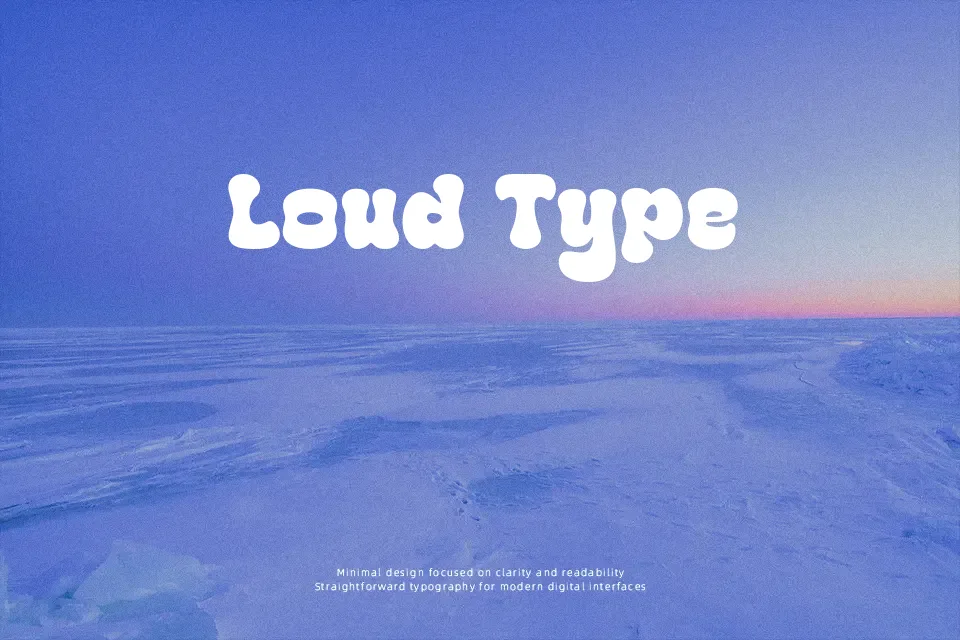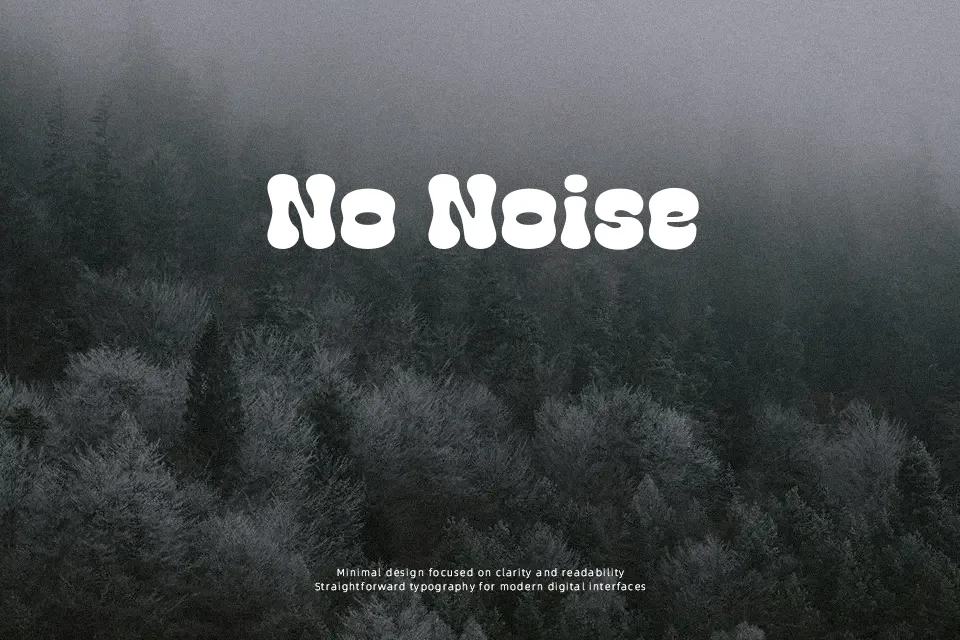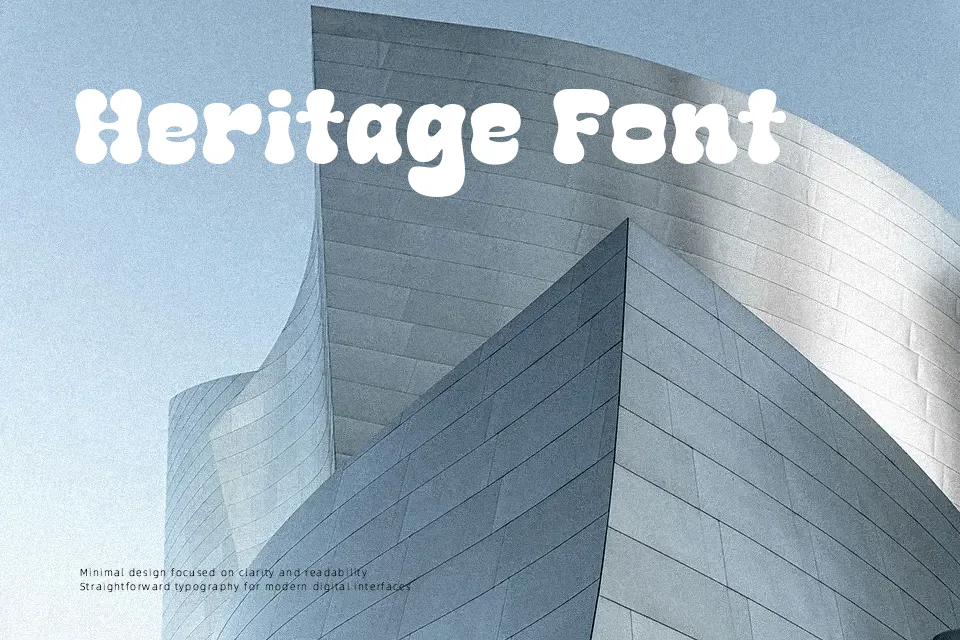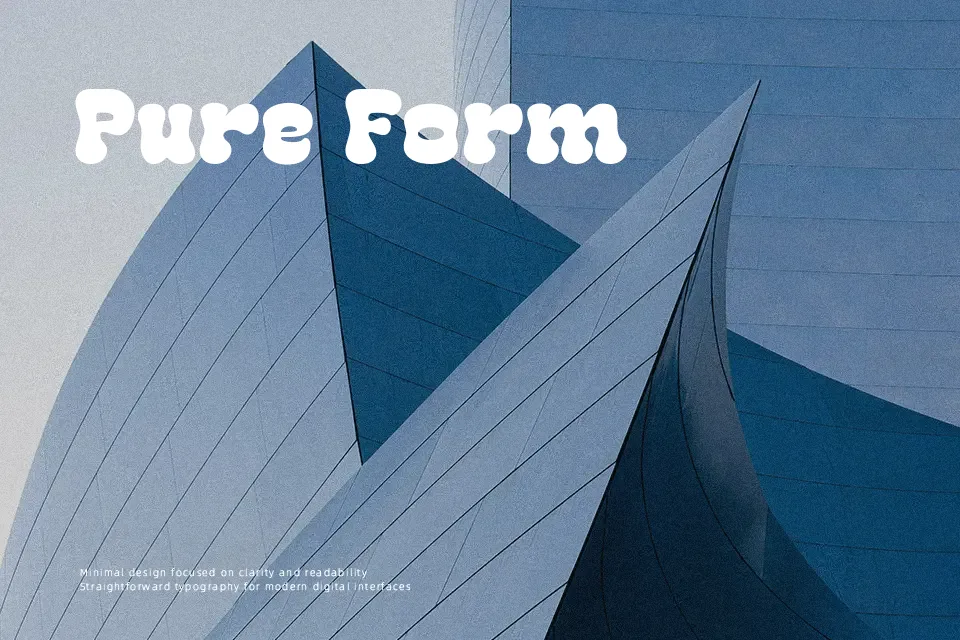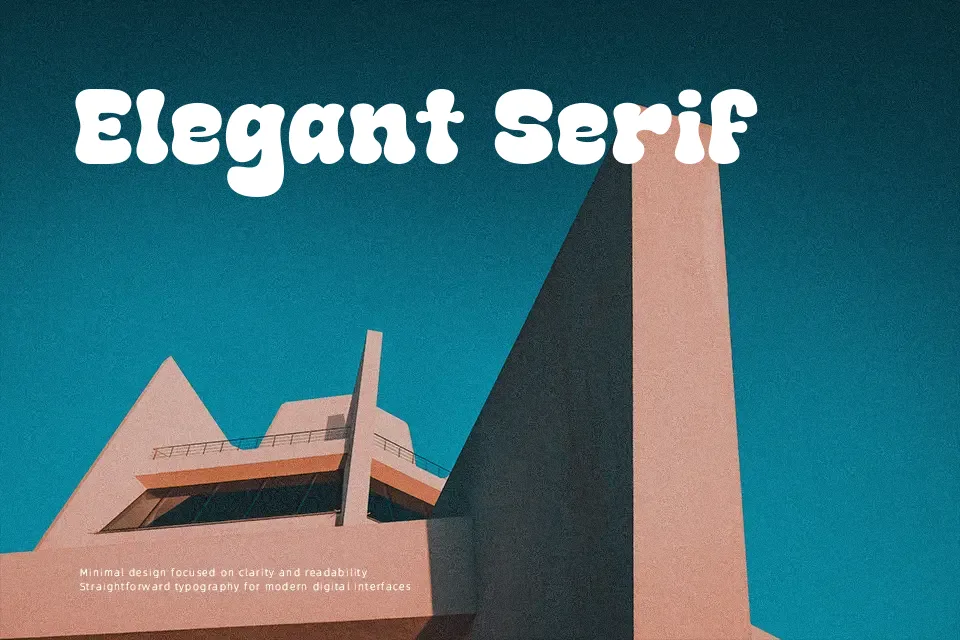
Super Matcha Font
Super Matcha Font uses thick, rounded letterforms with flowing curves, compact counters, and unevenly playful proportions that give short words a strong display presence. The strokes appear broadly consistent, while the generous curves soften the weight and keep headlines from feeling rigid. Its spacing works best when text is kept brief, allowing the character shapes to set the rhythm. The typeface is most effective on posters, packaging, and prominent titles rather than extended copy. At smaller sizes, the heavy forms and decorative details can make individual letters less immediately distinguishable.
Best For: retro product packaging,poster headlines,restaurant signage,apparel graphics
Perfect for headline, logo, and packaging, with a bold and decorative style.